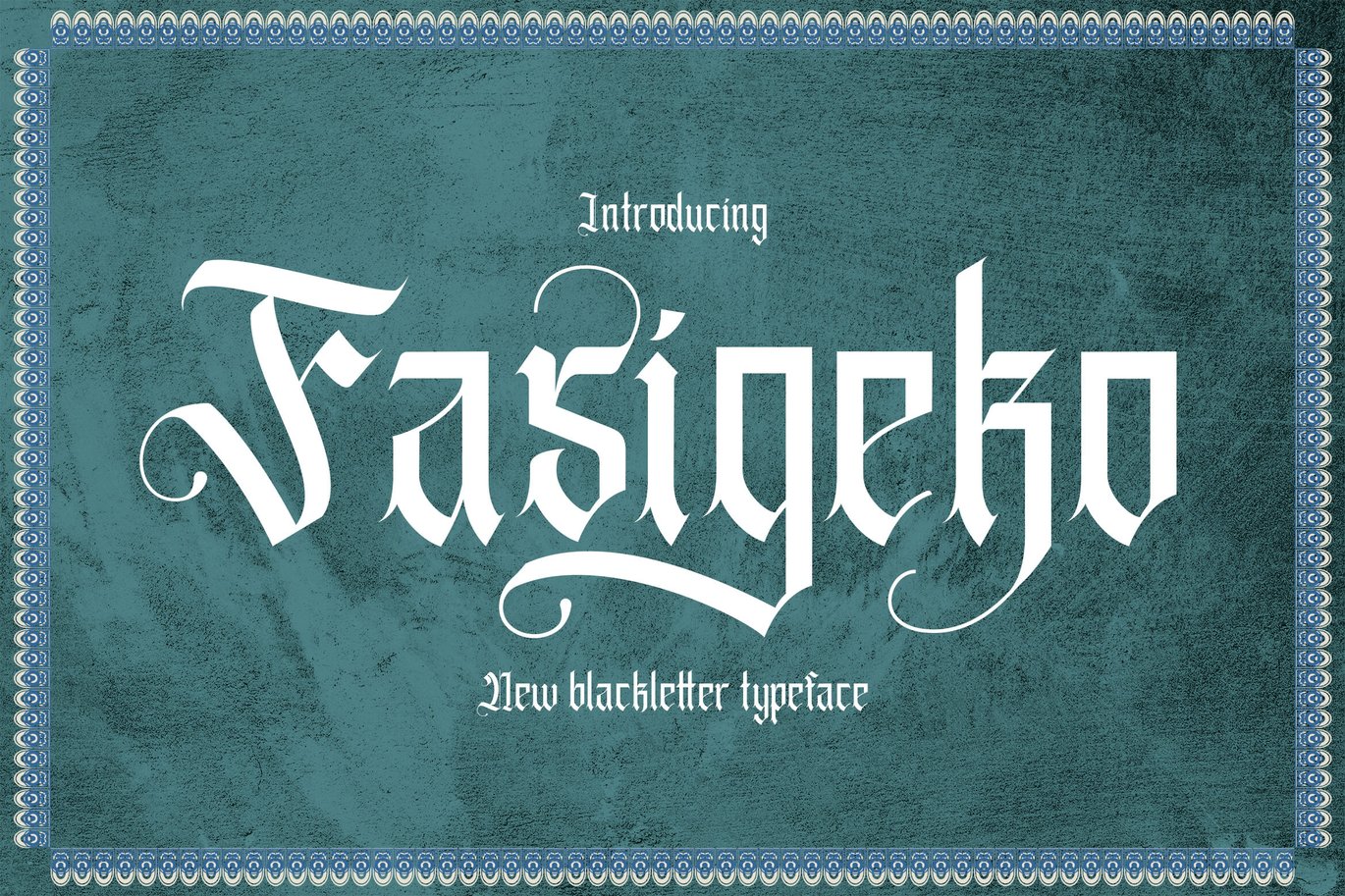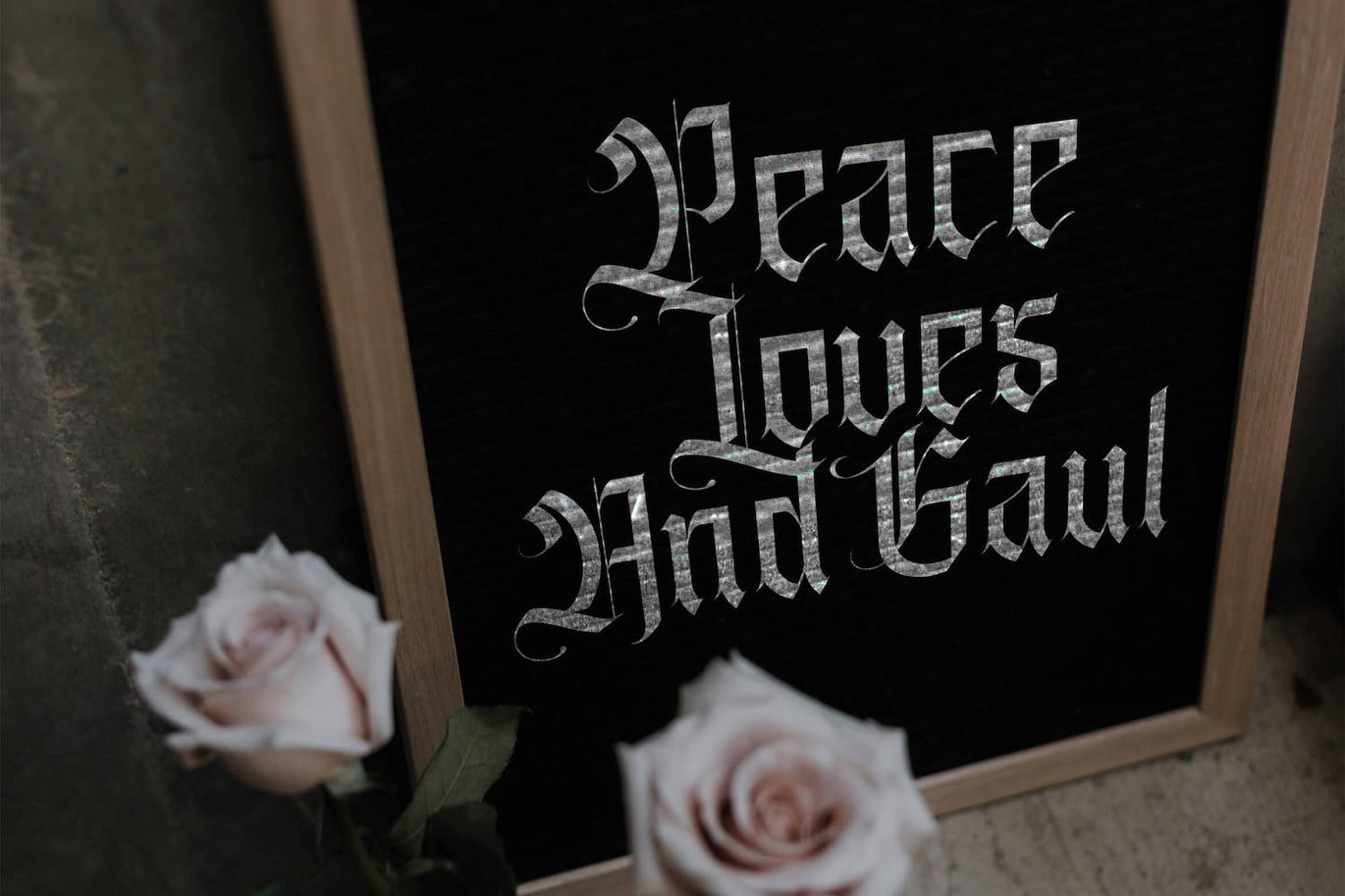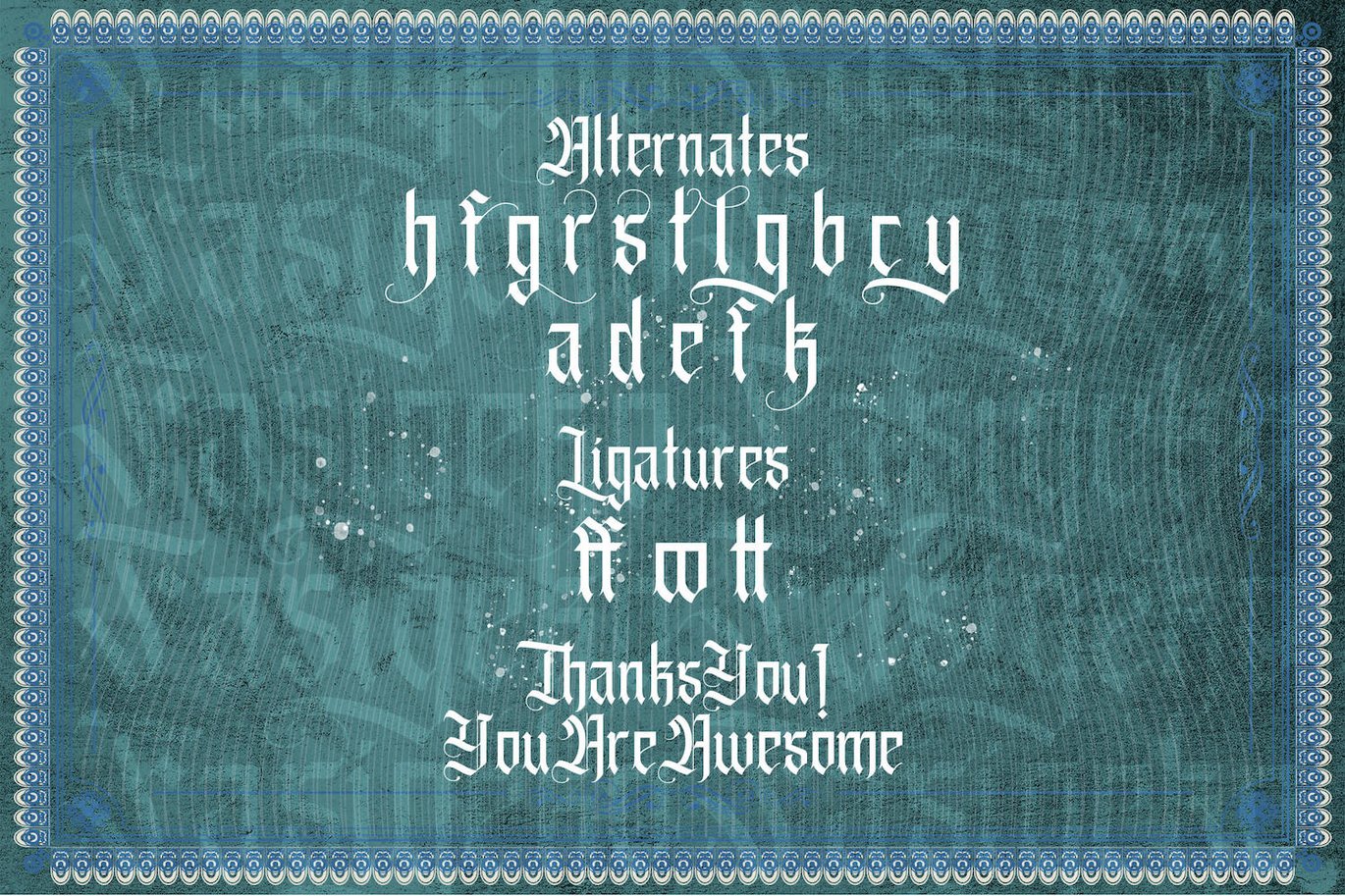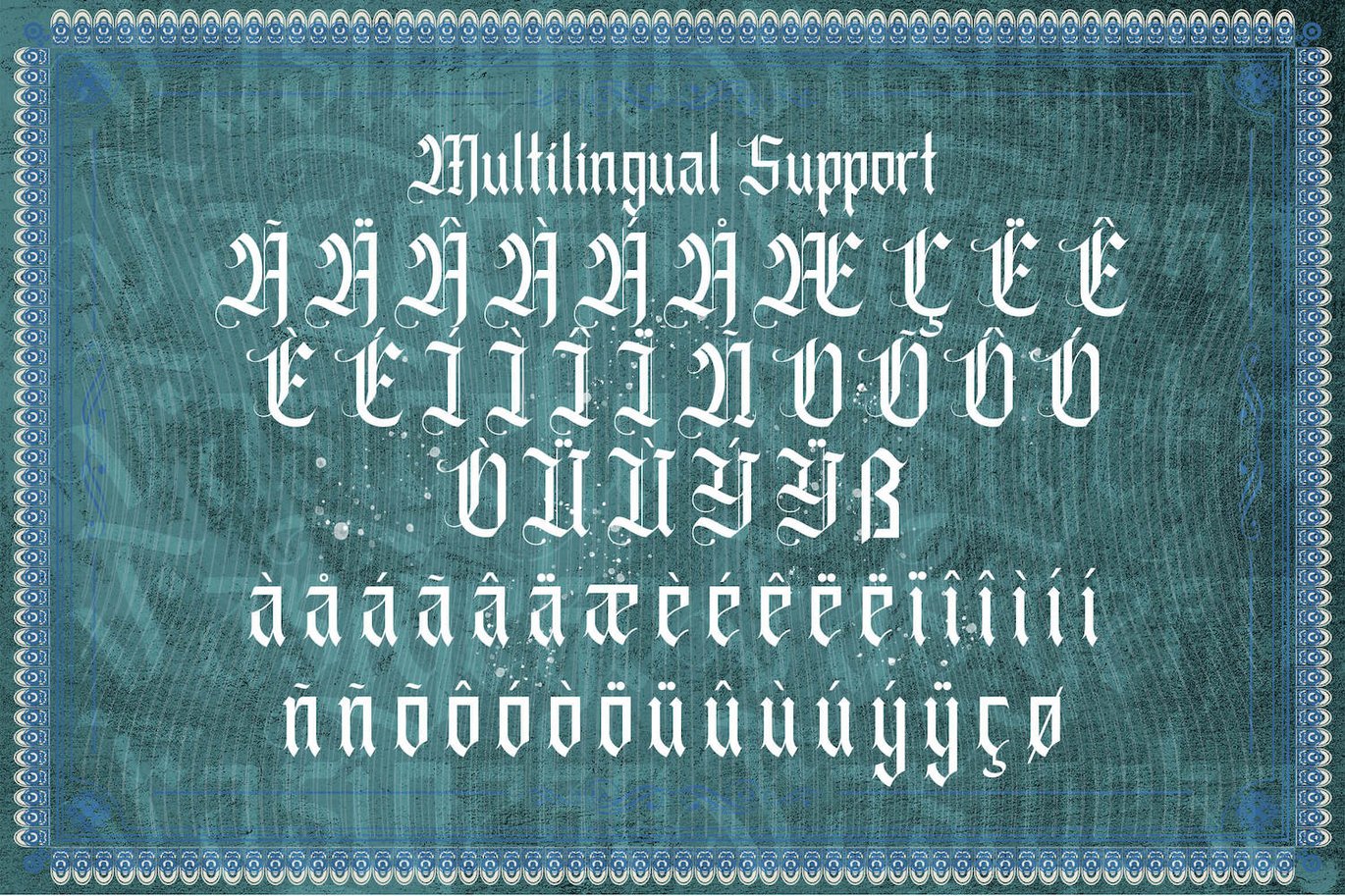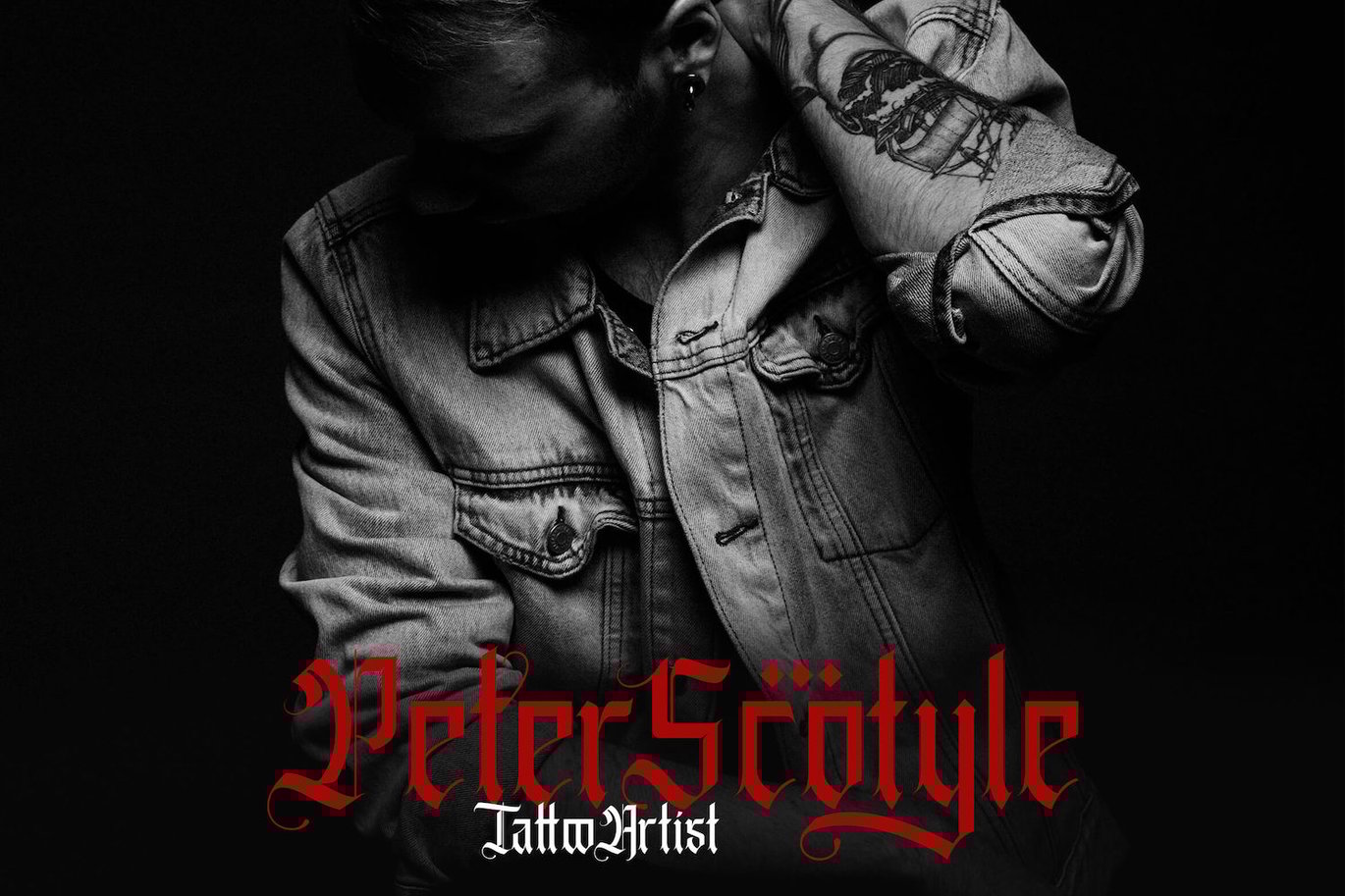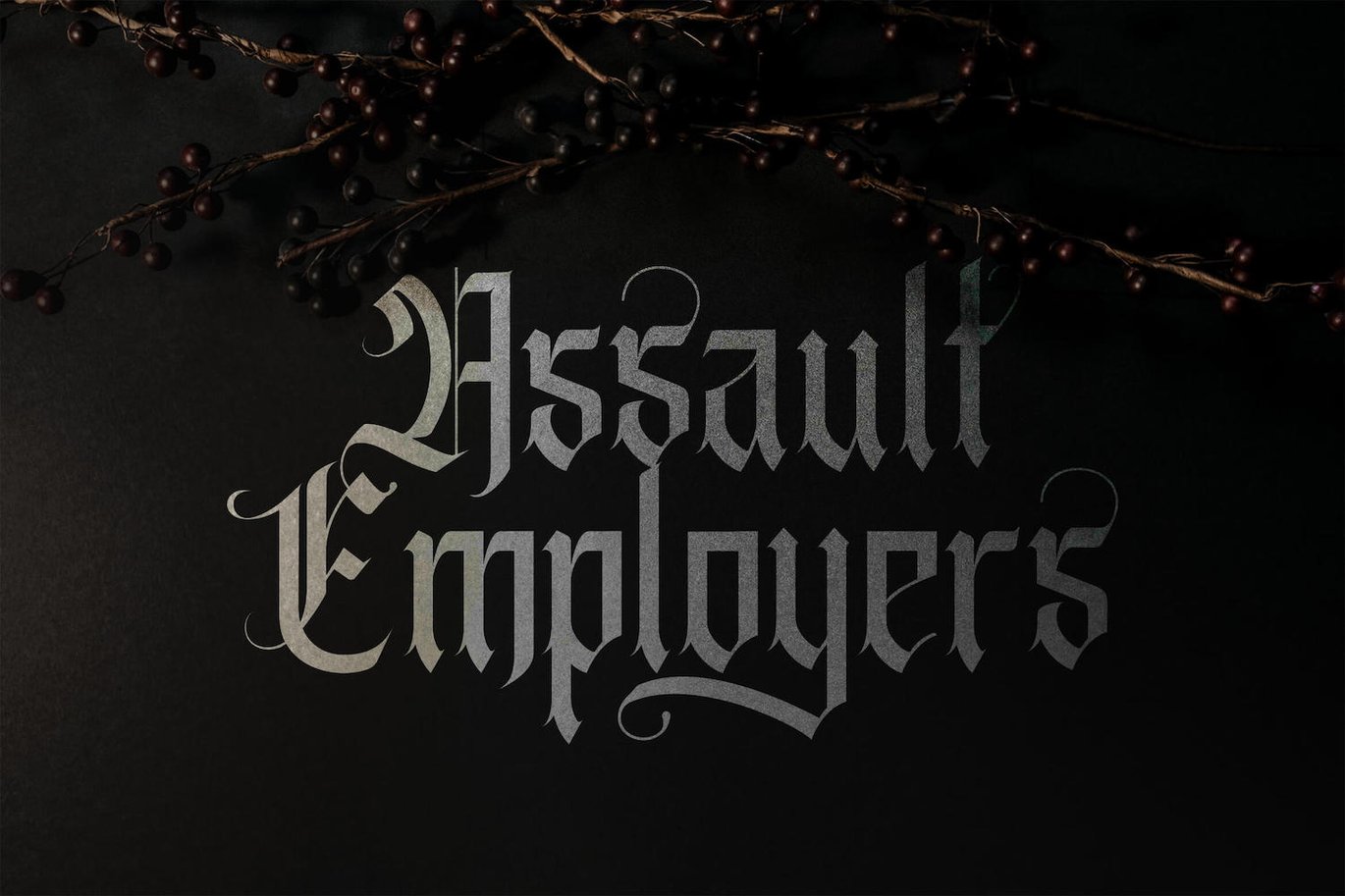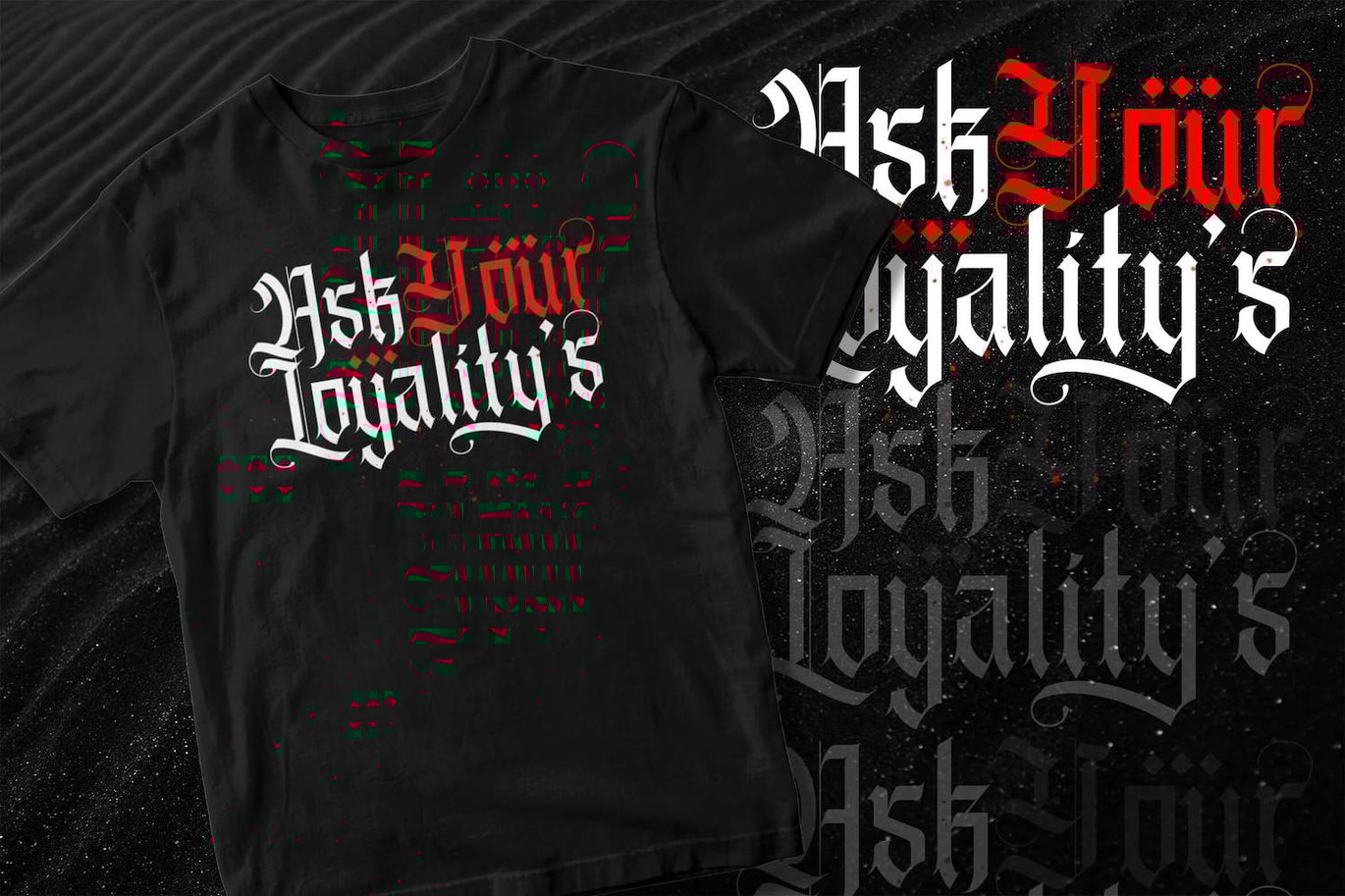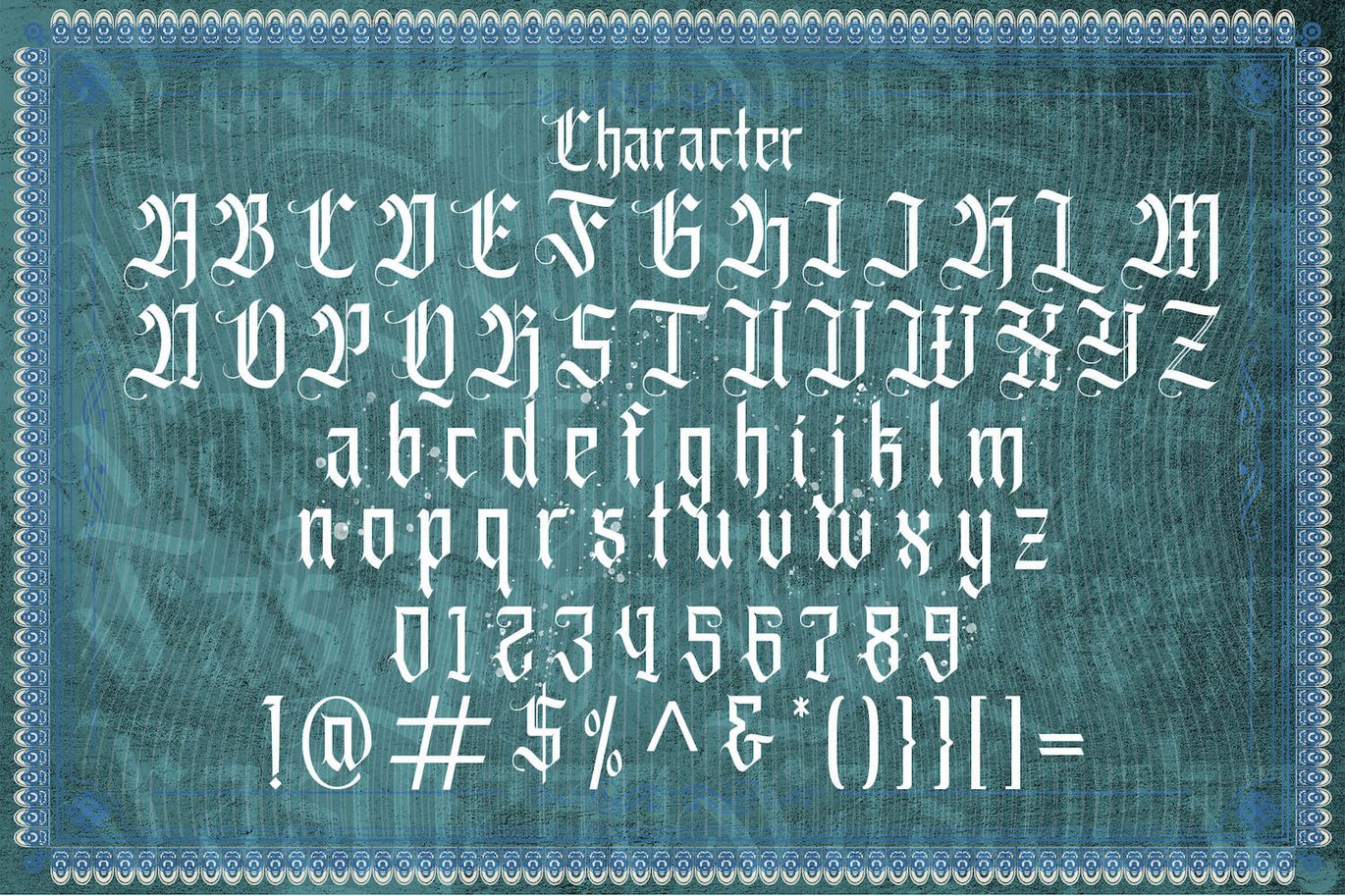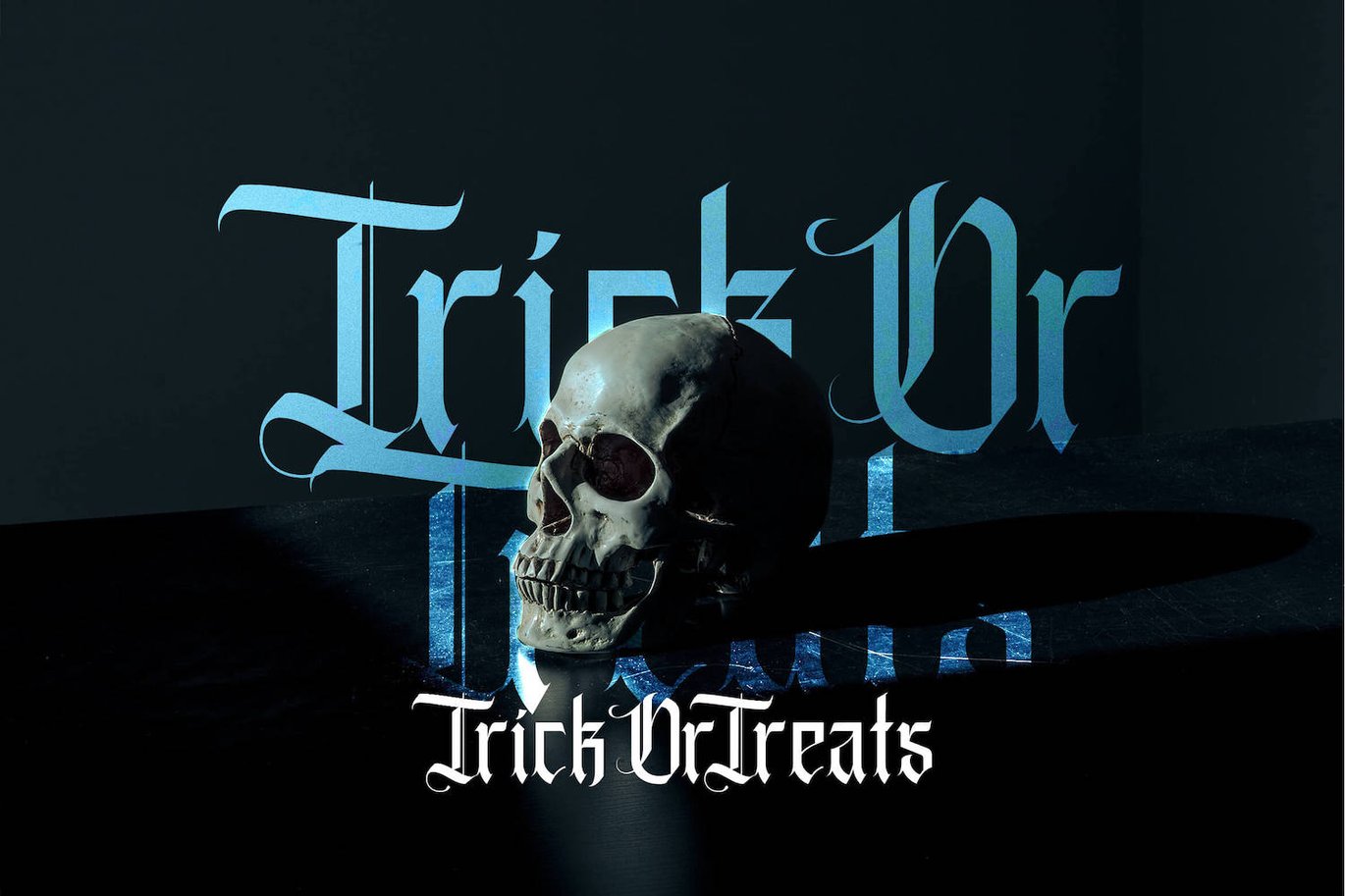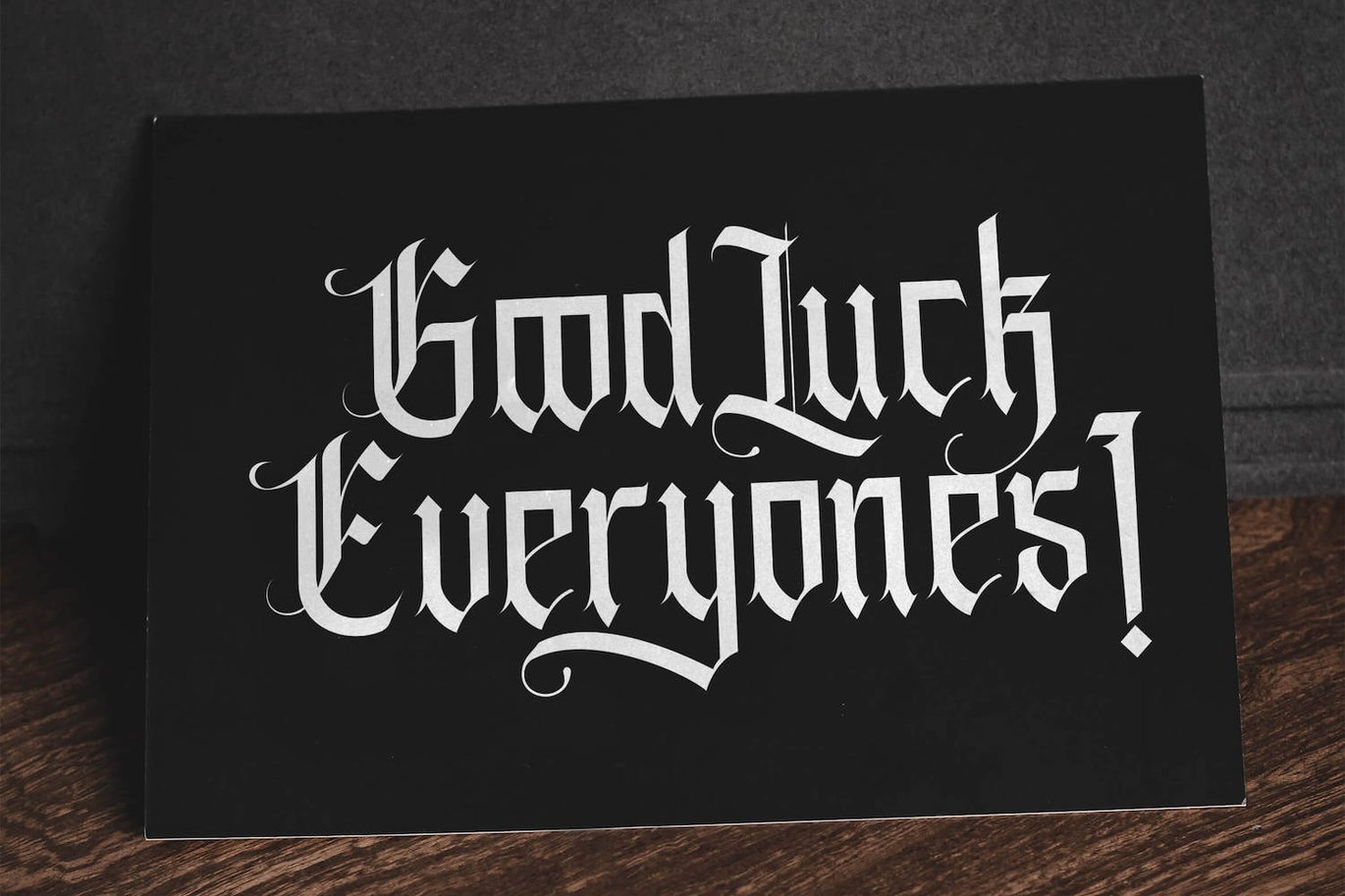
Fasigeko – Blackletter Font
Introducing Fasigeko – Blackletter Font
Fasigeko is an incredibly authentic and daring blackletter font. Add this font to your favorite creative ideas and notice how it makes them stand out!